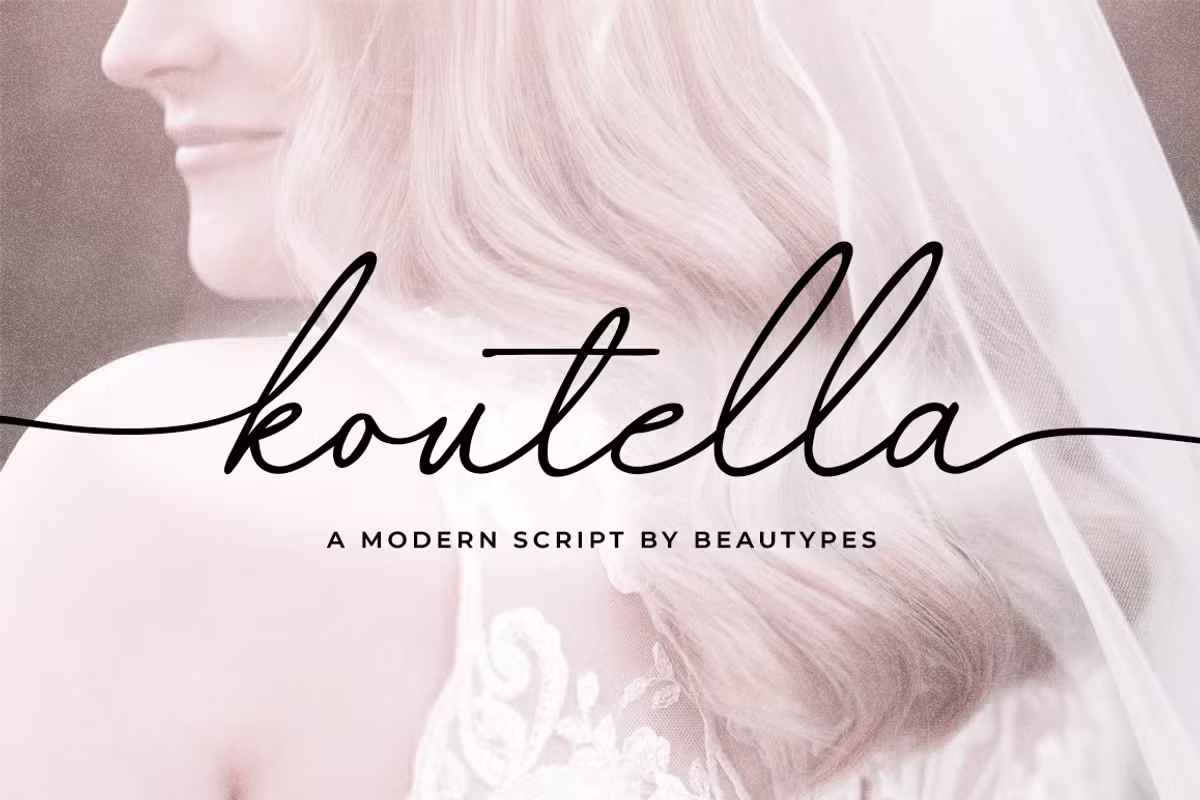
Please note that you must purchase this font for commercial use. You can download Koutella – A Modern Script Font for free, strictly for personal testing purposes only. Koutella is a stylish and elegant modern script font with flowing, graceful letterforms. With its smooth curves and artistic design, Koutella Font Free Download is perfect for creating sophisticated logos, wedding invitations, branding, social media posts, and other elegant designs.
This font combines contemporary script styles with readability, making it ideal for high-end branding, invitations, and custom stationery. It includes uppercase and lowercase letters, numerals, punctuation, and multilingual support, providing flexibility for a wide range of design projects.
Whether you're designing for a luxury brand, crafting beautiful event invitations, or creating modern branding, Koutella adds a refined, handwritten touch to your typography.